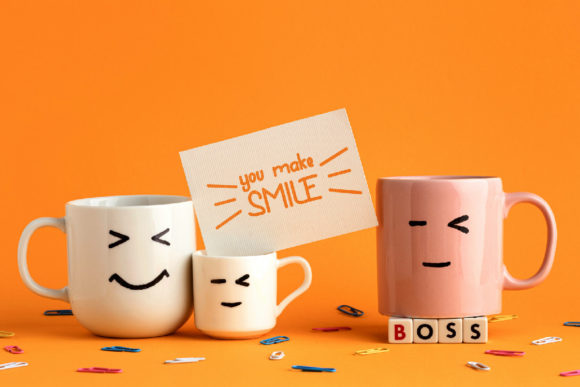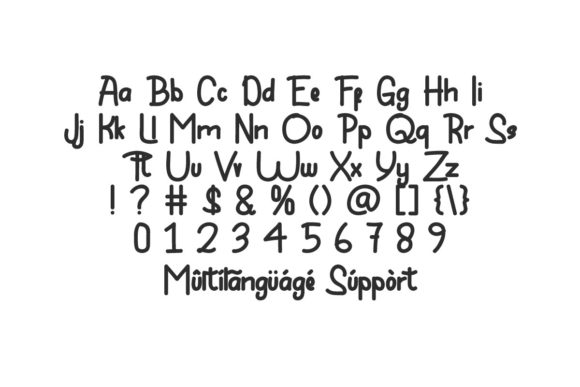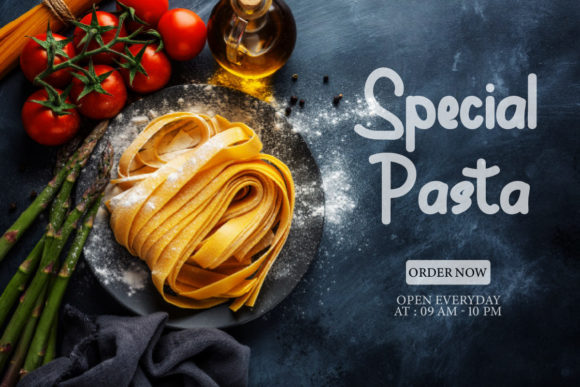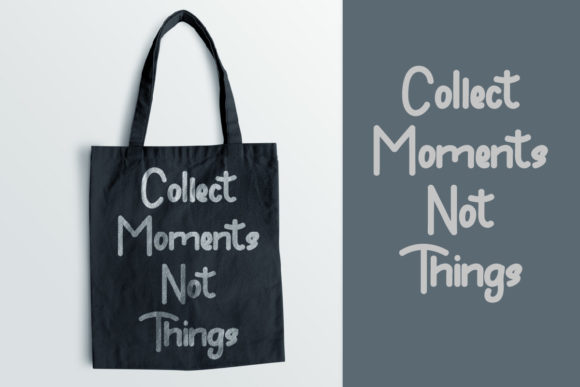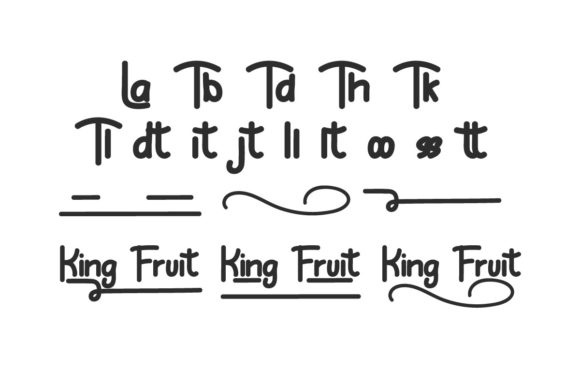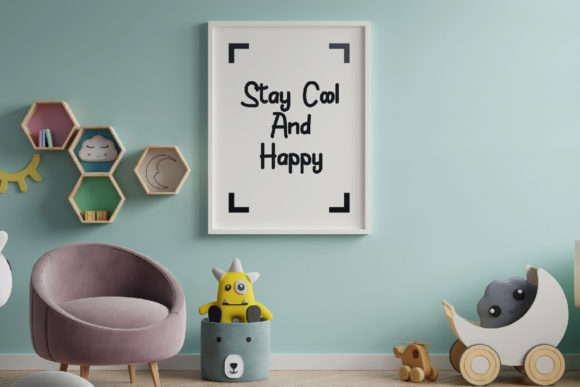
Introduction to King Fruit Font Font
Fonts play a crucial role in design, and the King Fruit Font font is a typeface that brings both character and versatility to any project. Whether you’re working on a branding project, a website, or a print design, the King Fruit Font font offers a unique style that can elevate your work.
King Fruit is a playful and fun display font great for games, titles, books, etc.
This font is crafted carefully in every single letter, so you can be sure that the outcome will be special and exclusive This one should make your designs instantly jaw-dropping.
Key Features of King Fruit Font Font
Why Choose King Fruit Font Font?
The King Fruit Font font is more than just a typeface – it’s a design tool that helps you communicate your message with style and clarity. Its unique character set and versatile design make it suitable for a wide range of applications, from elegant invitations to bold headlines.
With its carefully crafted letterforms and balanced proportions, the King Fruit Font font ensures readability and visual appeal across all mediums.
What makes King Fruit Font font special?
The King Fruit Font font stands out with its unique design, exceptional readability, and versatility across various design applications.